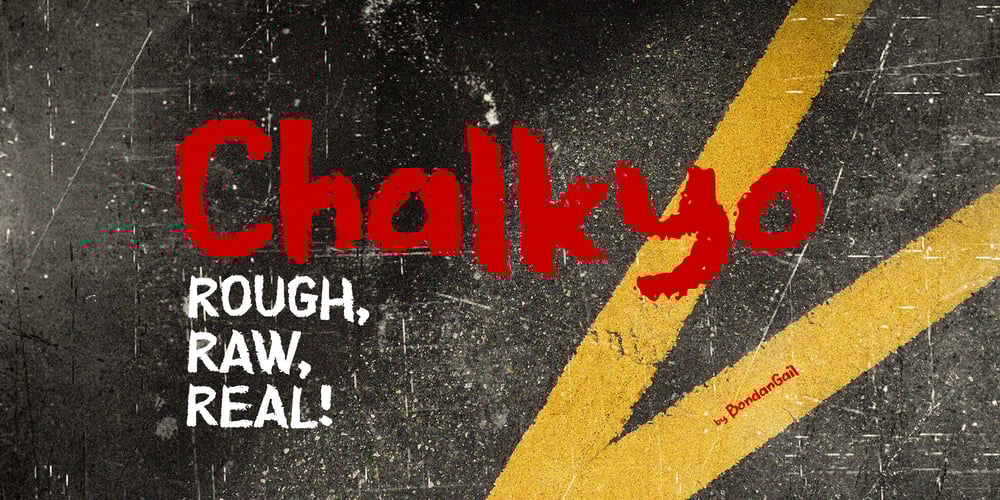
Chalkyo
Chalkyo font
Chalkyo Font Family was designed by Wahyu Eka Prasetya, Bondan Gail Saputro and published by BondanGail. Chalkyo contains 1 styles and family package options. “Chalkyo” is a bold, hand-drawn font with a rough and textured look. Its eroded edges and uneven strokes give it a raw, artistic feel, perfect for designs that need energy and personality. The font mimics chalk or paint, making it great for posters, branding, or eye-catching headlines.With its playful irregularities and strong visual impact, “Chalkyo” stands out in both digital and print media. Its street-art-inspired style adds a creative, DIY touch, making it ideal for edgy, urban, or artistic projects.